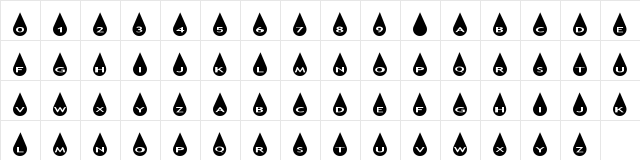
AlphaShapes raindrops Normal Free Font
AlphaShapes raindrops Normal
Design Context for AlphaShapes raindrops
AlphaShapes raindrops is a composed and adaptable typeface that performs quietly and consistently across a wide range of design contexts.